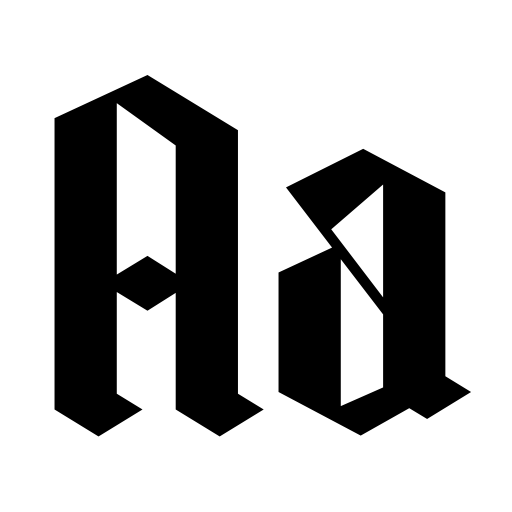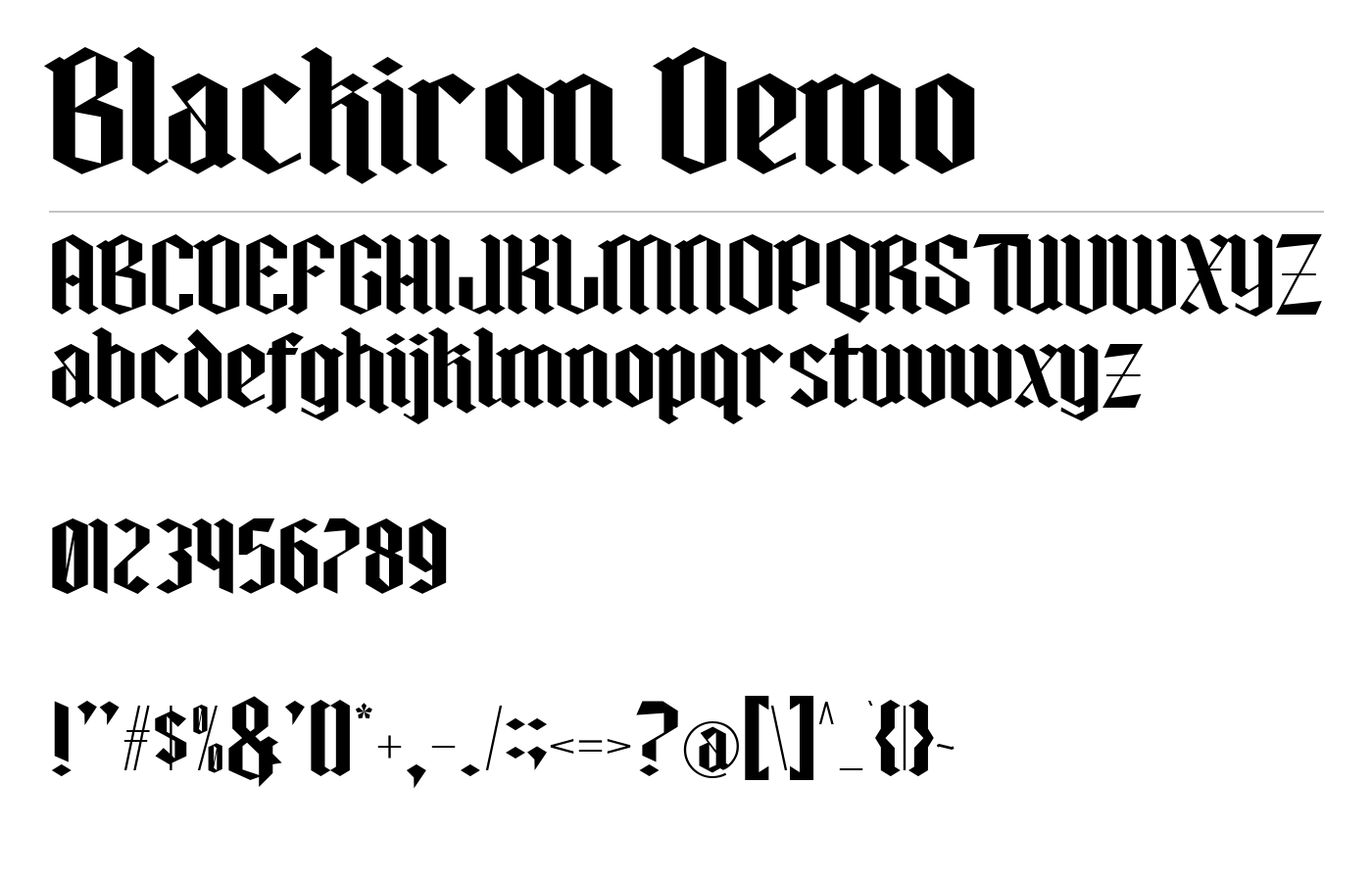
Blackiron Demo is a bold blackletter-style font featuring sharp, angular strokes and a distinct gothic character. With its condensed width and high contrast between thick and thin elements, it delivers a dramatic, vintage feel perfect for headlines, logos, and branding that seeks to evoke a strong, medieval-inspired identity. This font works well in designs that want to stand out with an edgy, historic, yet modern flair.
Blackiron Demo Font
About Blackiron Demo Font
| Font family | Blackiron Demo Font |
| Designer | Suandana Ipandemade |